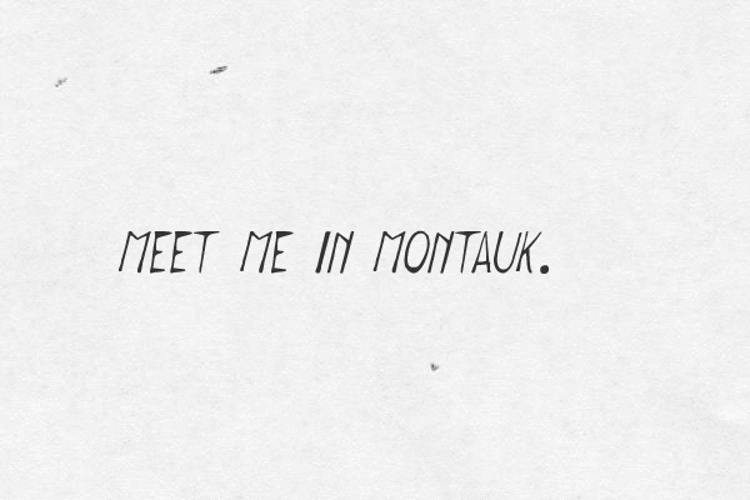
Meet me in Montauk Font
This font has been made with paper, pencils, two sets of hands, a scanner, and a lot of patience.
The name on the font is inspired by the movie "Eternal sunshine of the spotless mind"